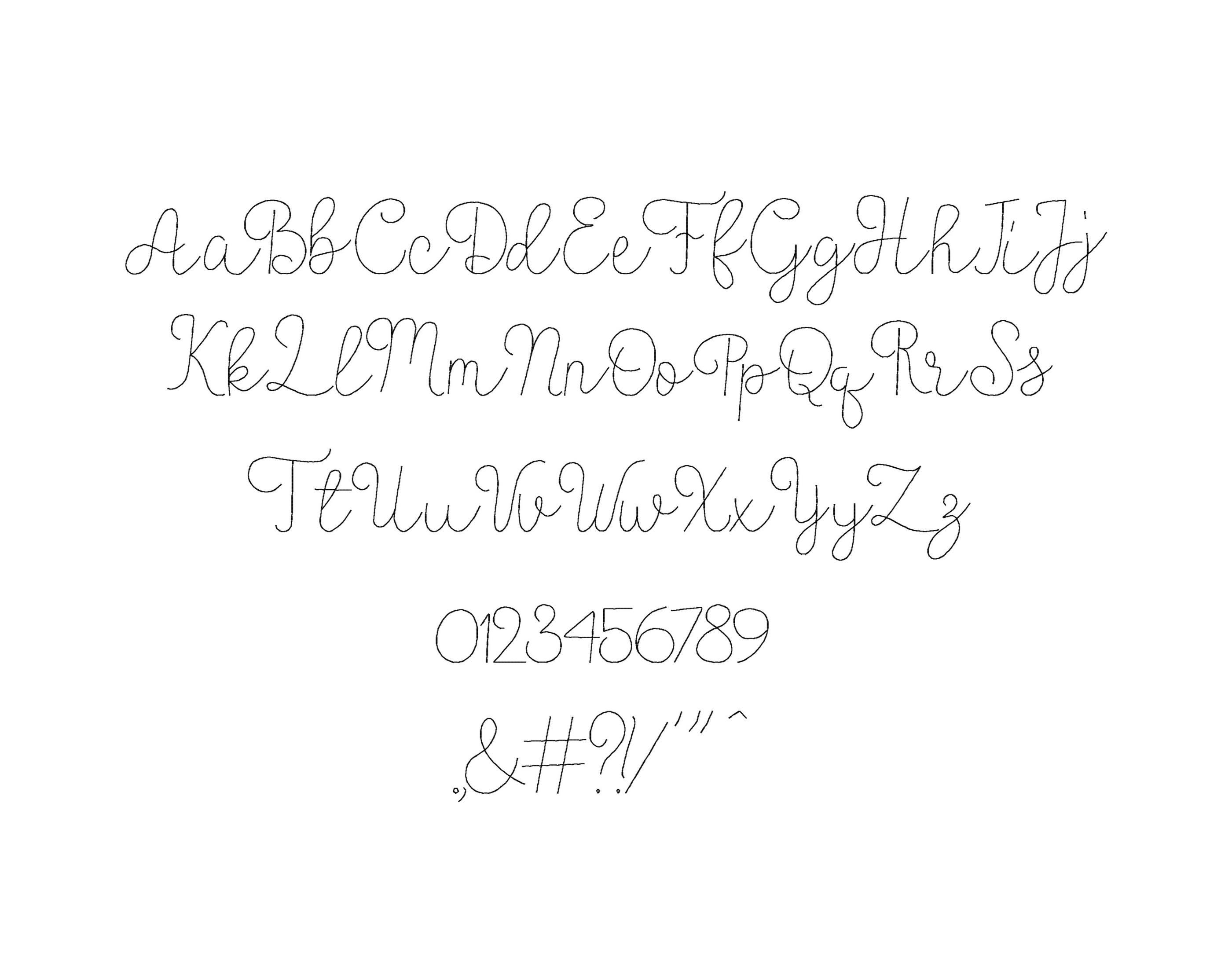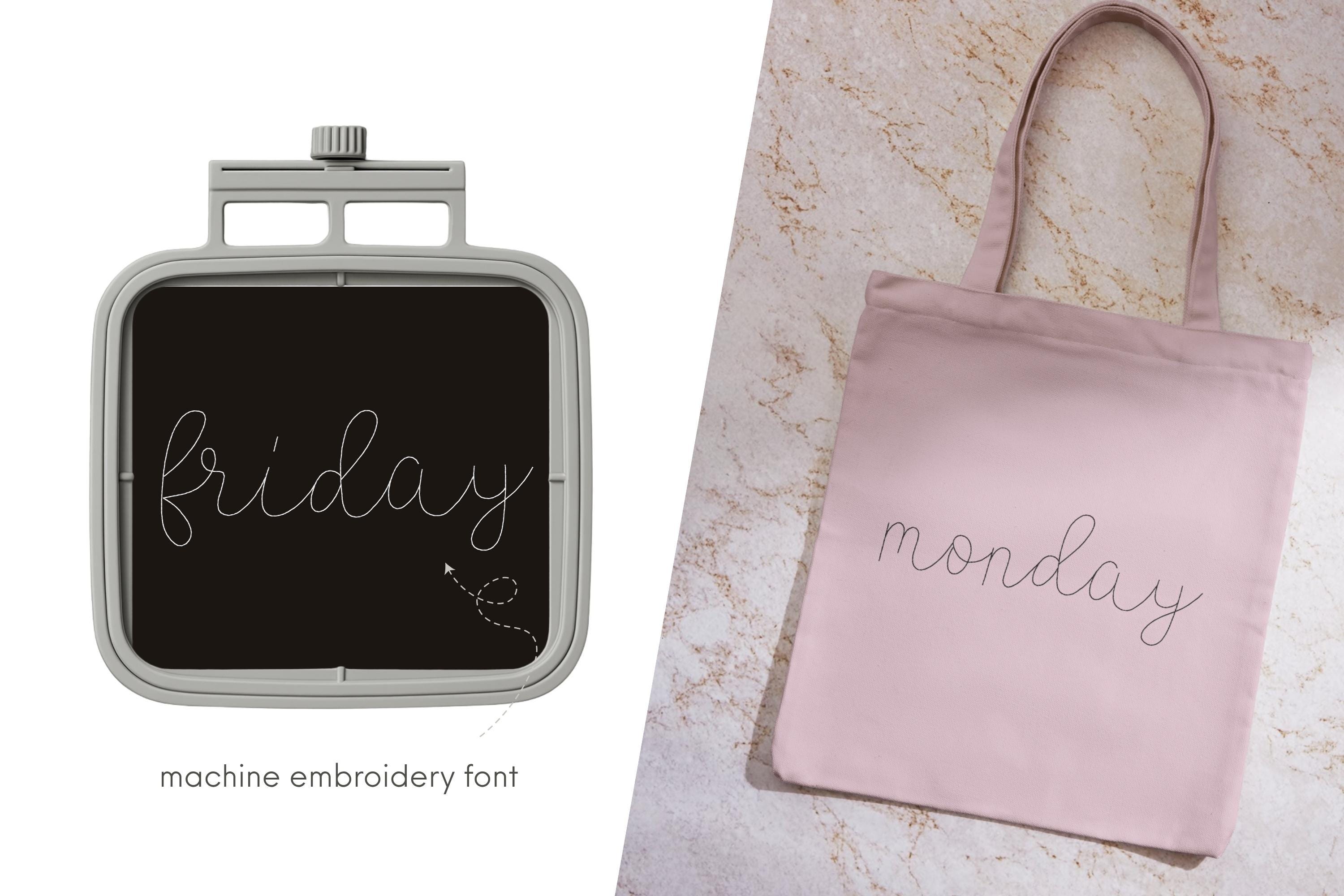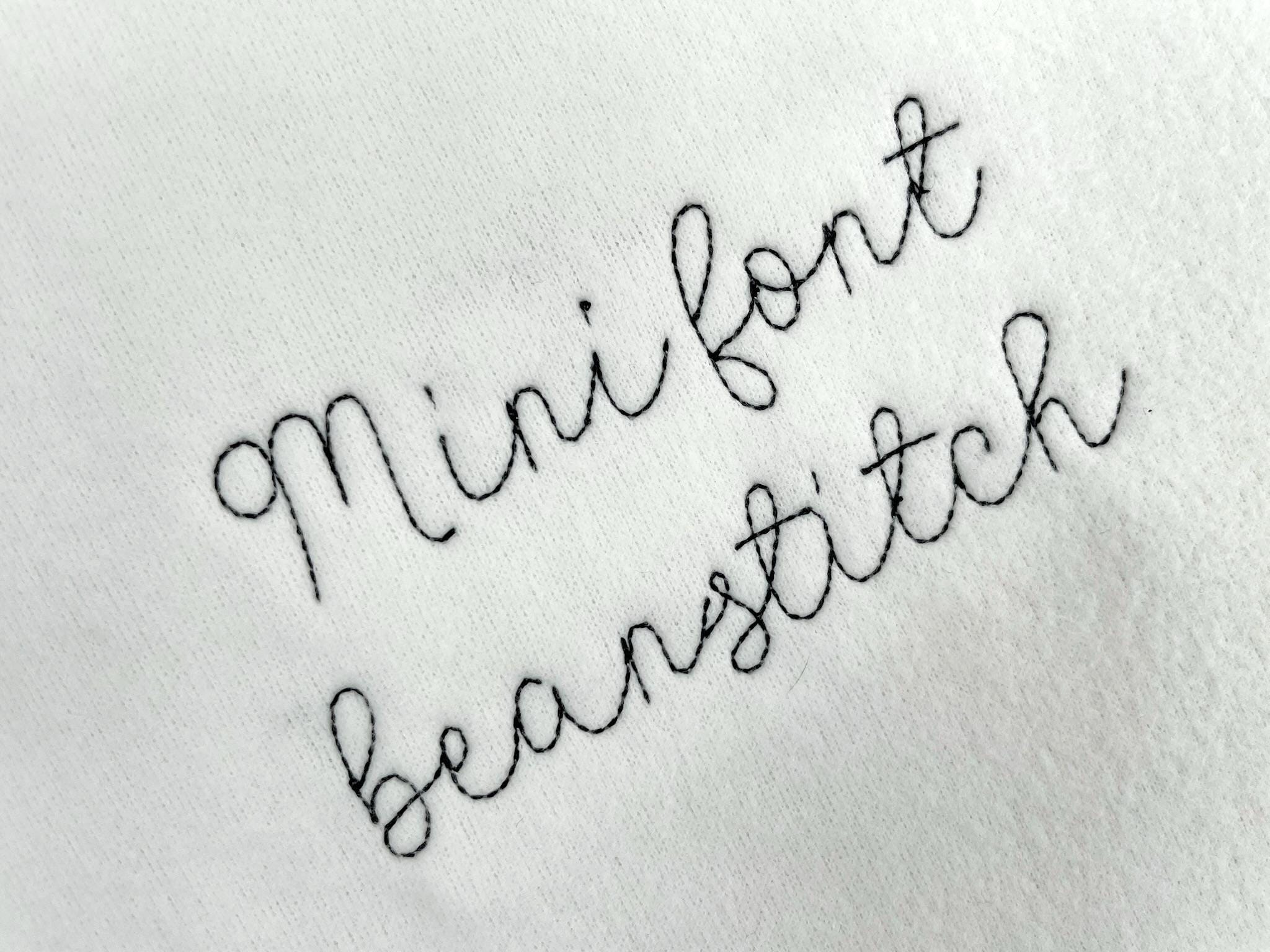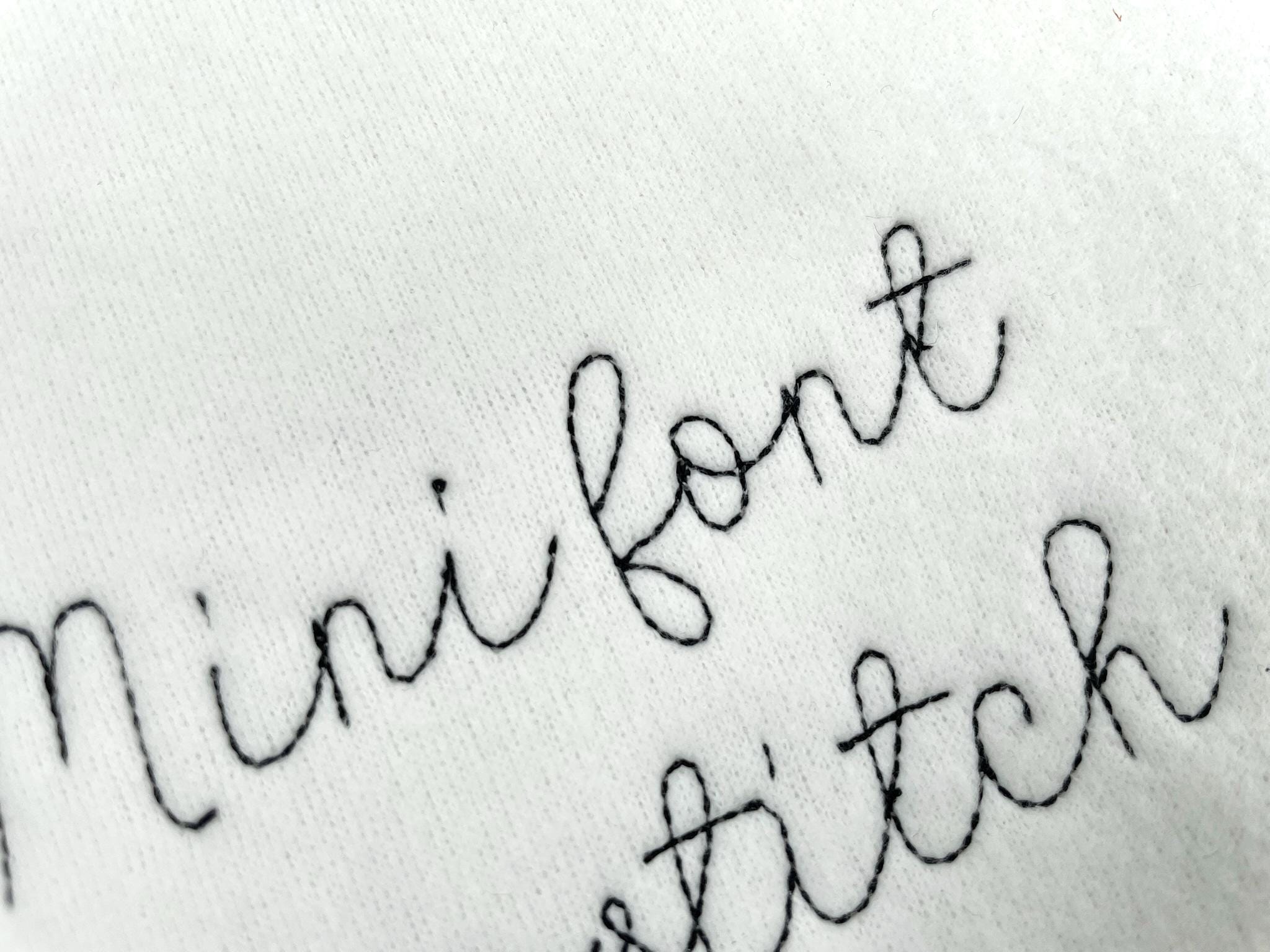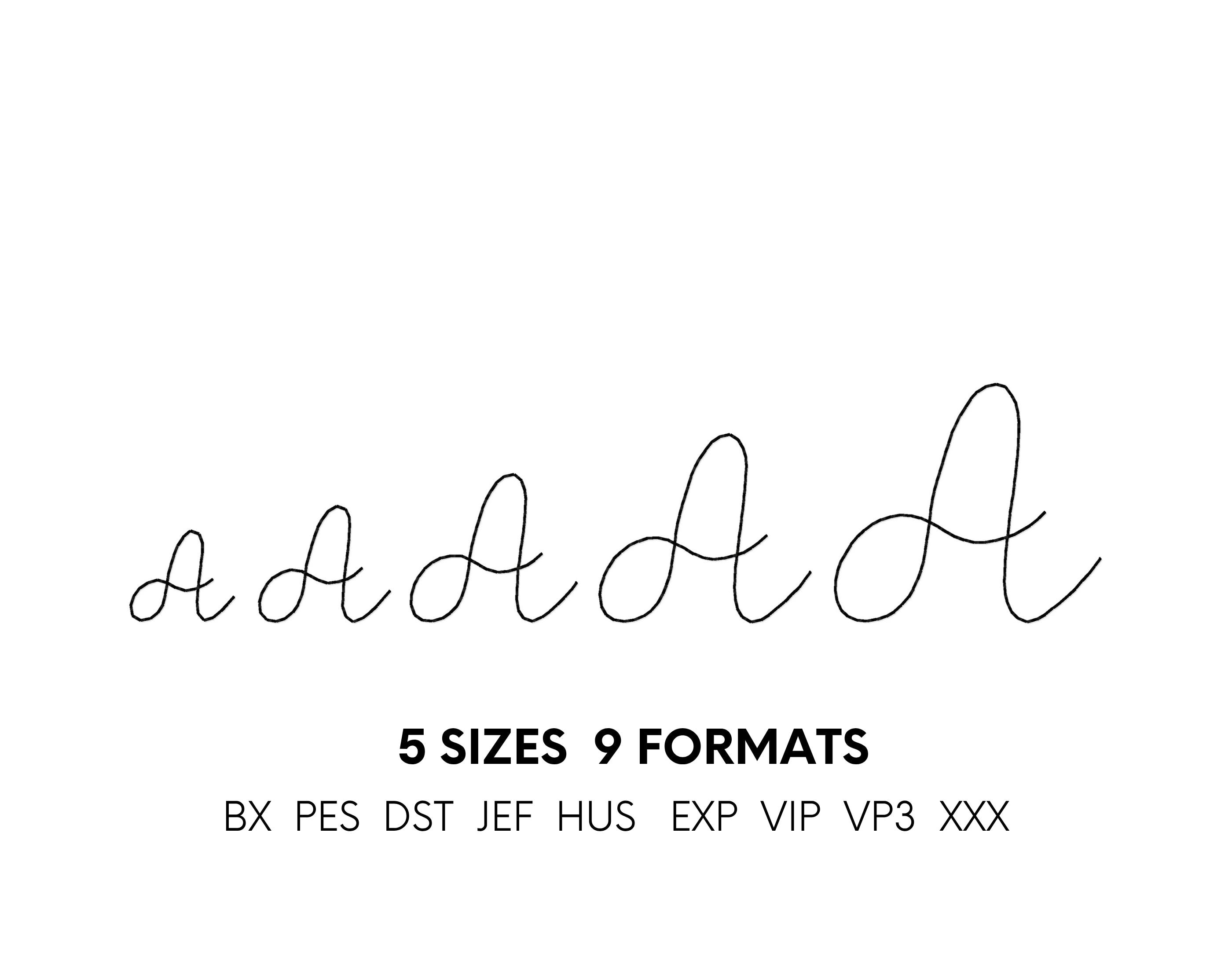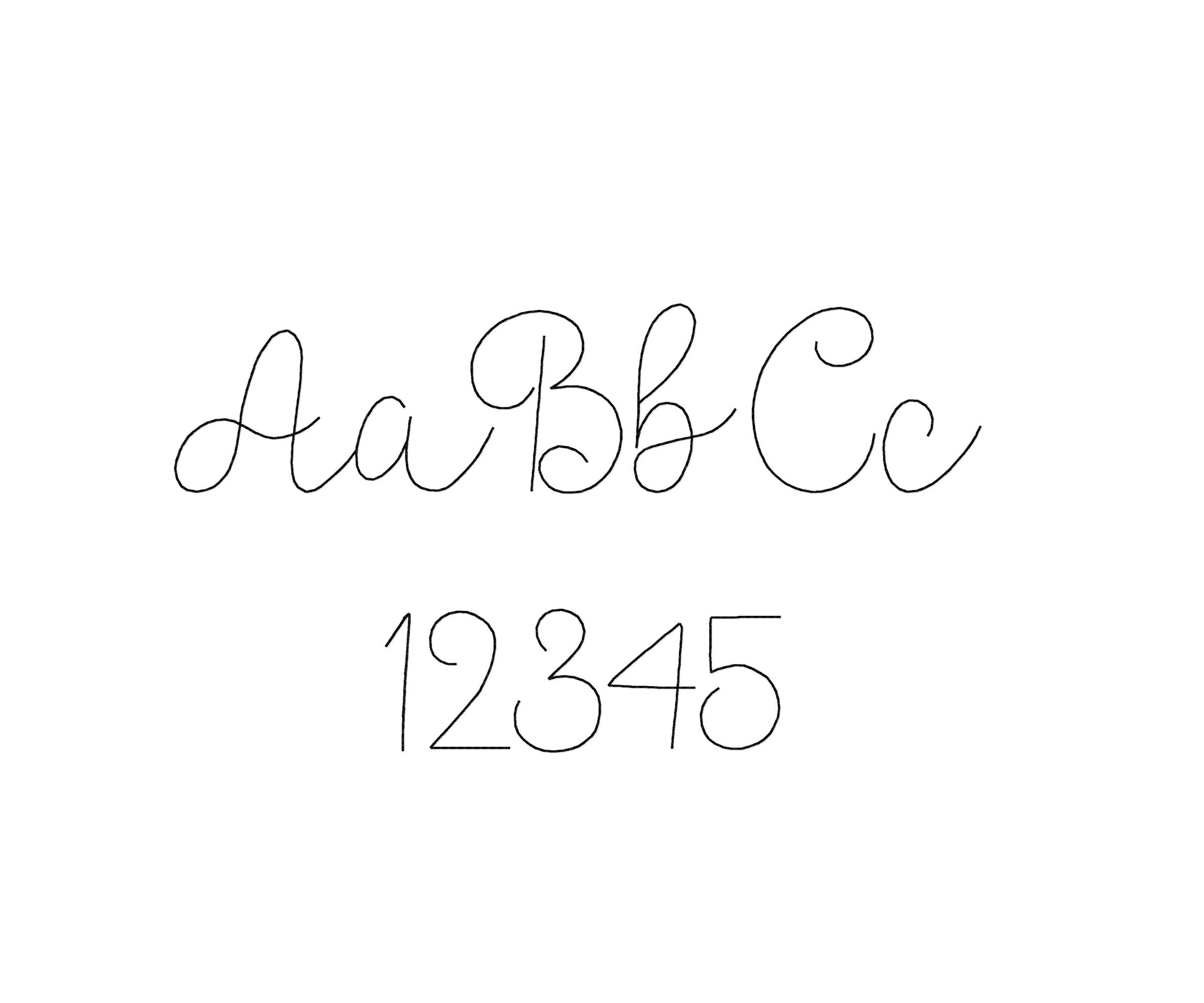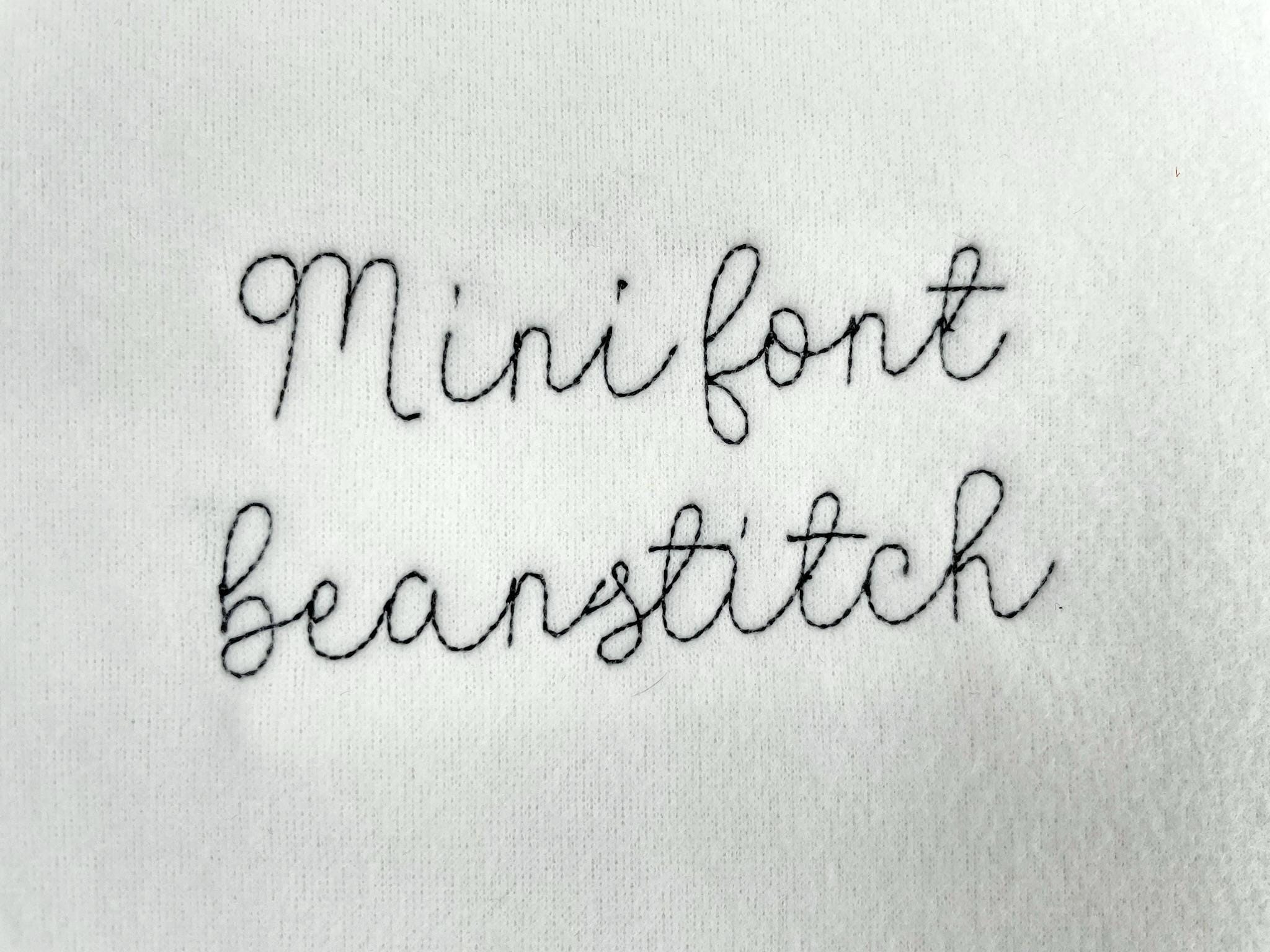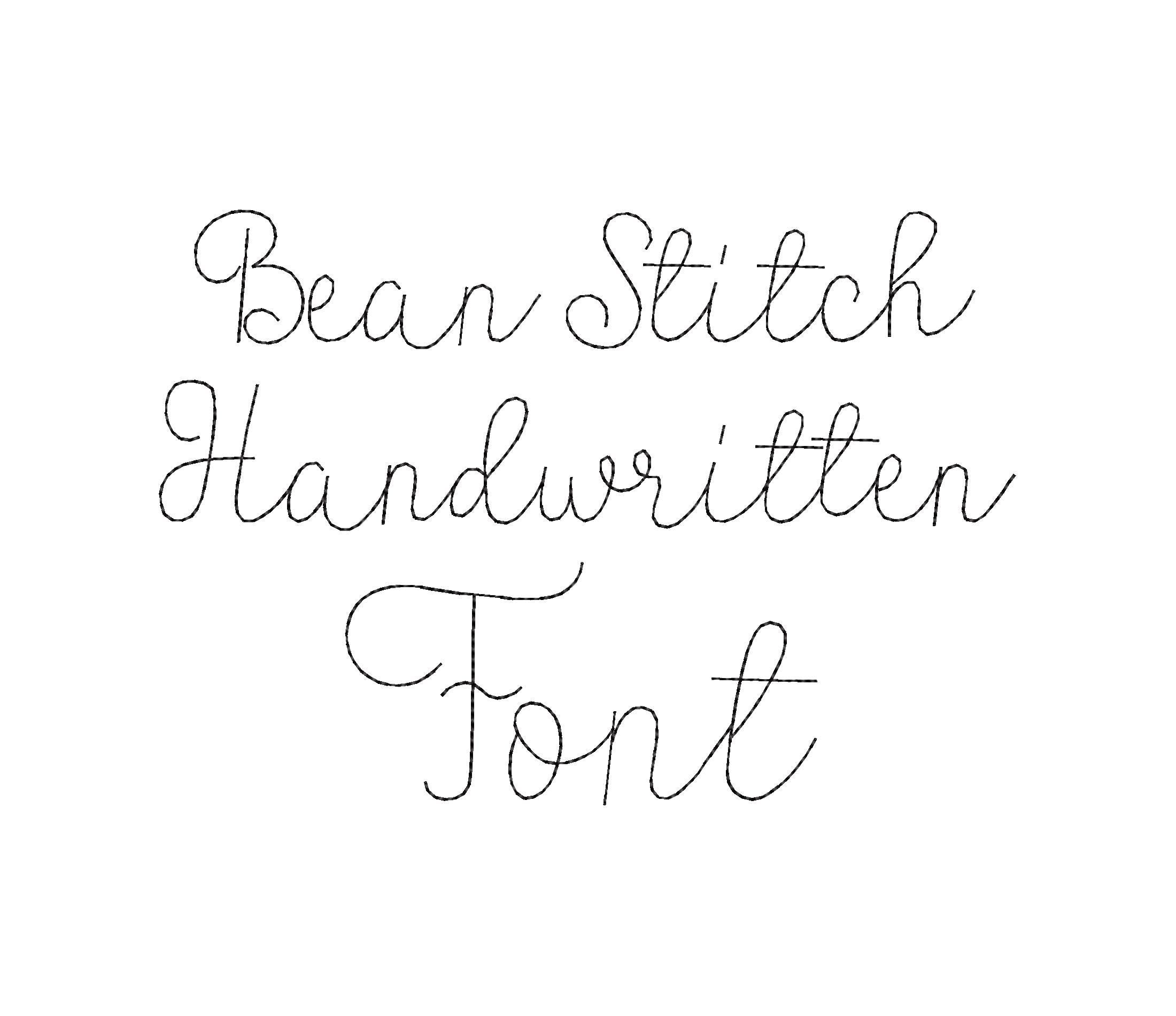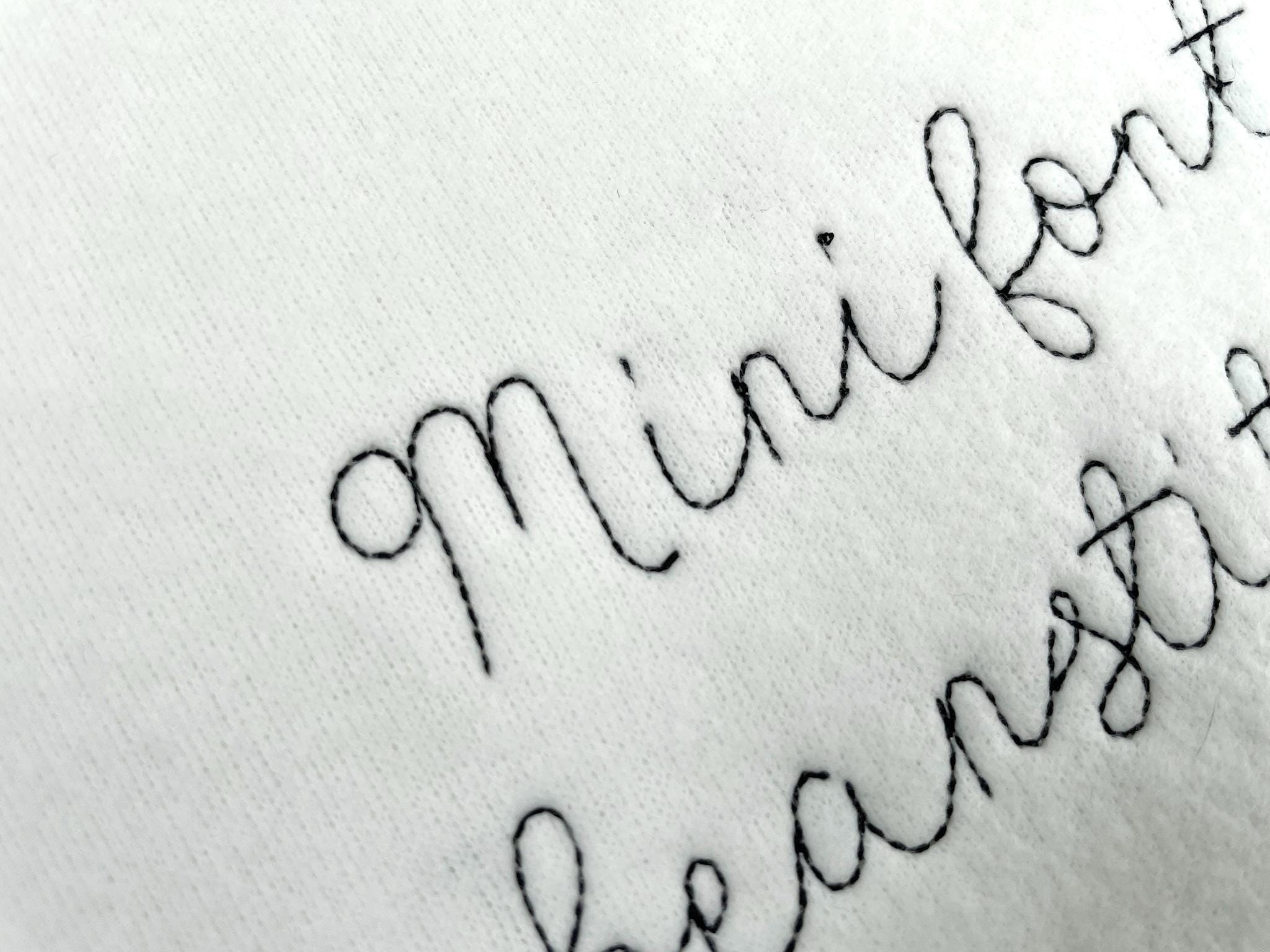
Bean Stitch Handwritten FONT quick light stitch script alphabet Monogram machine embroidery designs mini sizes 0.6 up to 1.8 inch, BX
Whole alphabet Aa-Zz uppercase and lowercase letters, numbers 0-9, and punctuation.